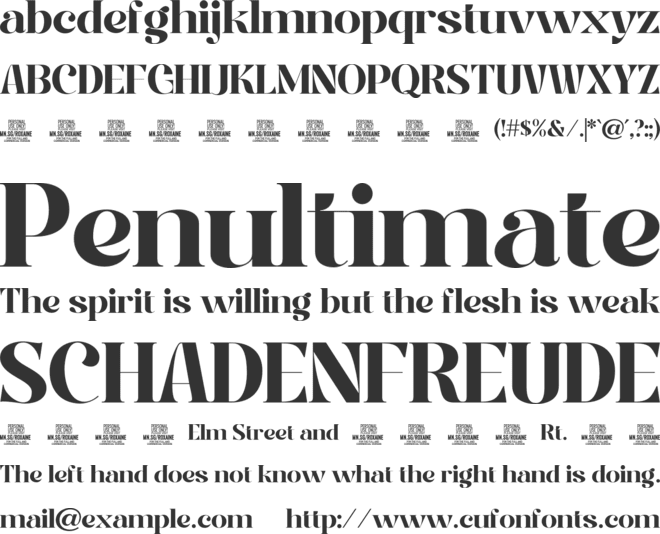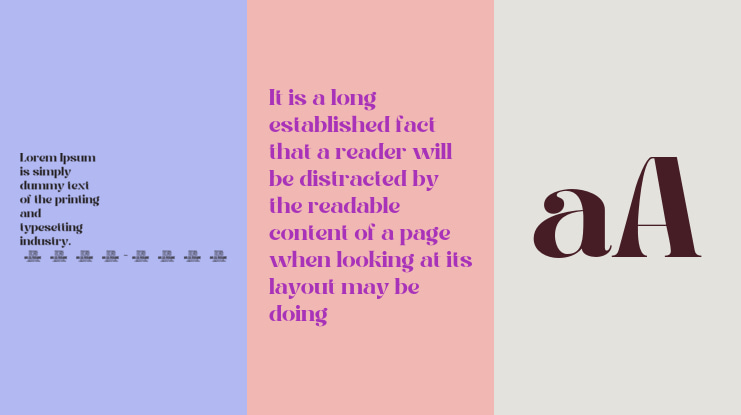
Roxaine Serif PERSONAL USE Font Family
Mans Greback
NOTE: This font is for PERSONAL USE ONLY!To purchase a commercial license, visit:https://www.mansgreback.com/product/roxaine-serifRoxaine Serif is a bold yet elegant serif typeface, balancing a sense of classical tradition with contemporary sharpness. Its high contrast strokes and distinctive serifs give it a sophisticated presence, while the flowing curves keep it approachable and full of personality. For questions, please visit https://mansgreback.com/faq